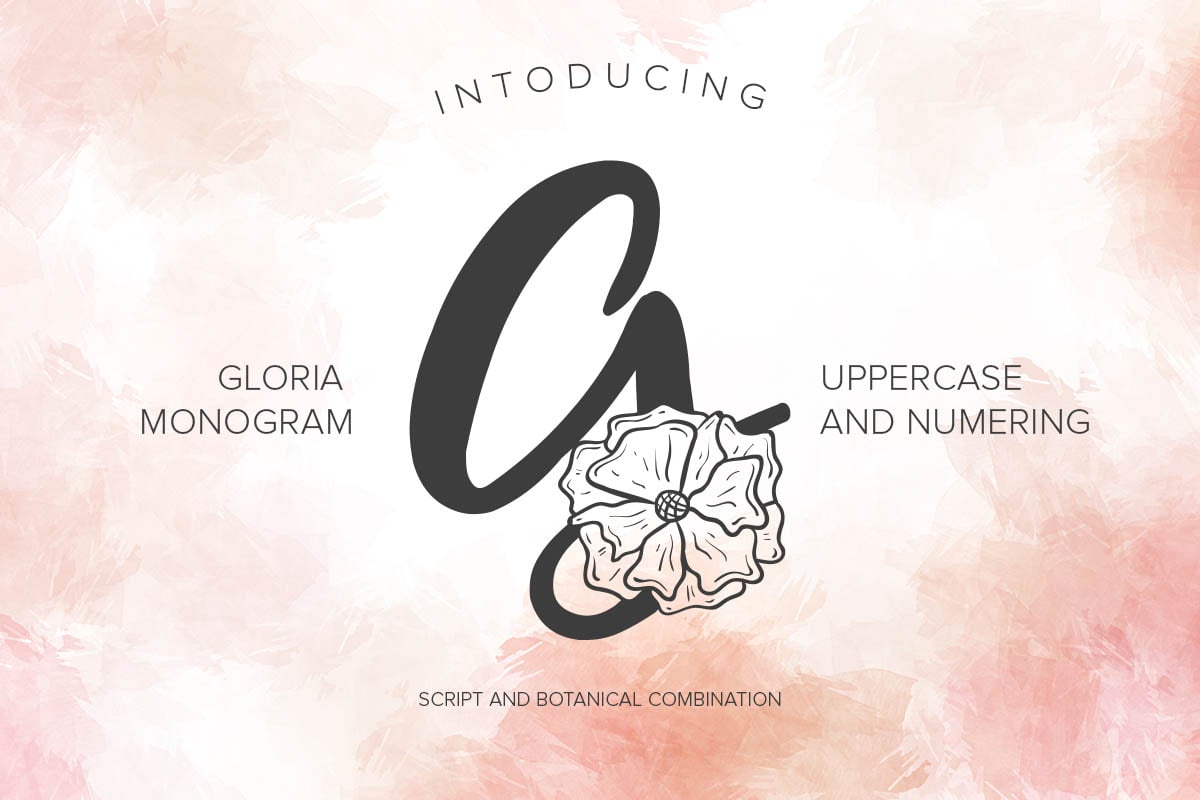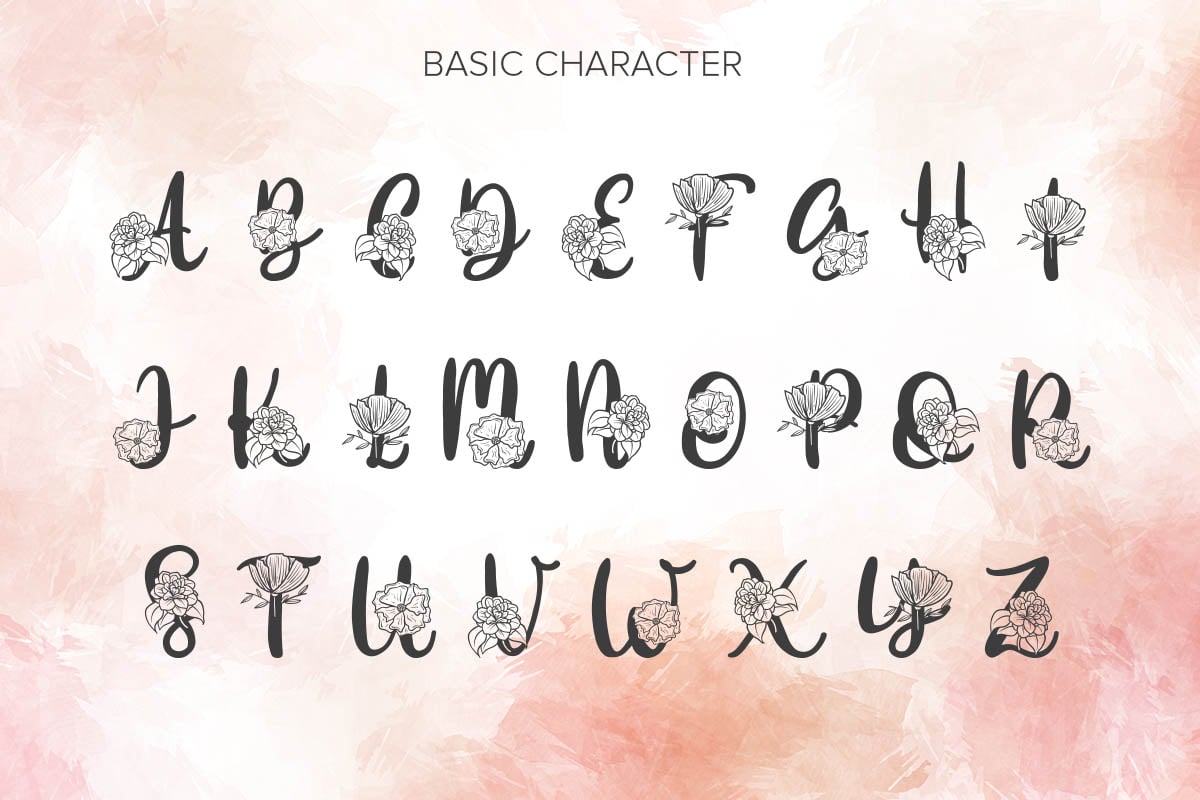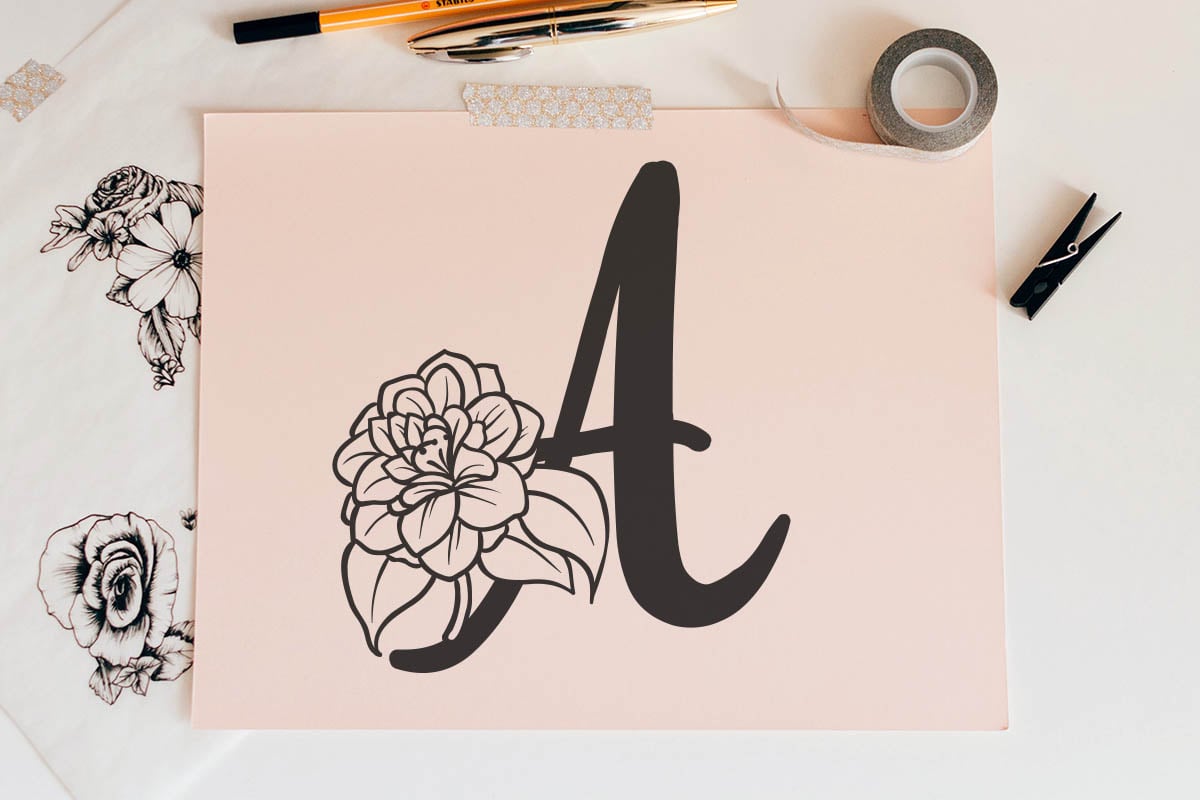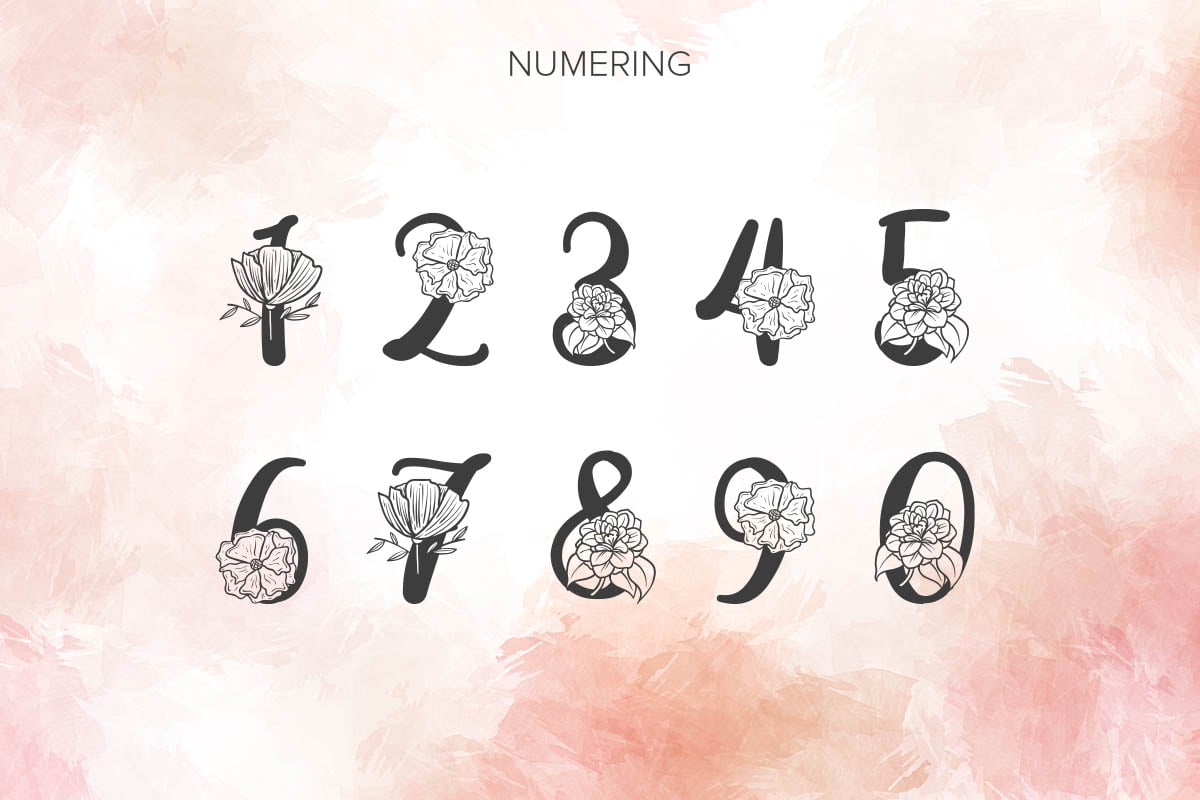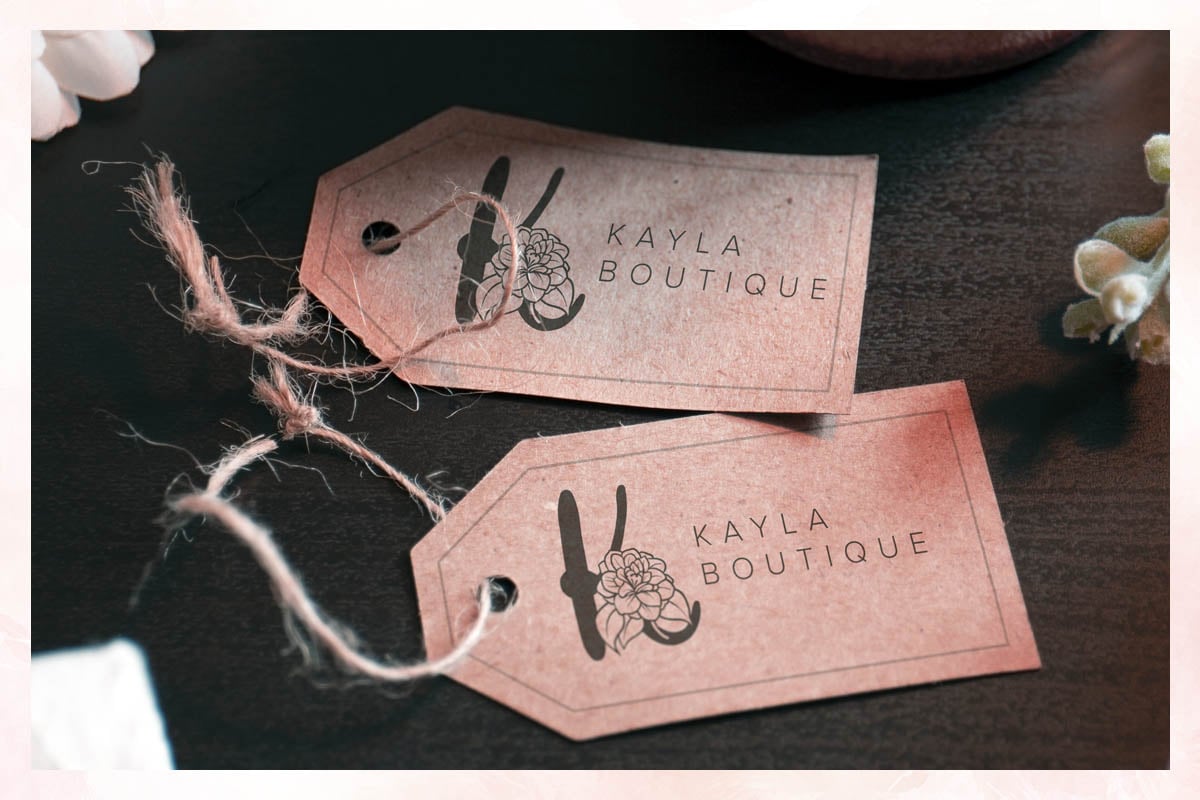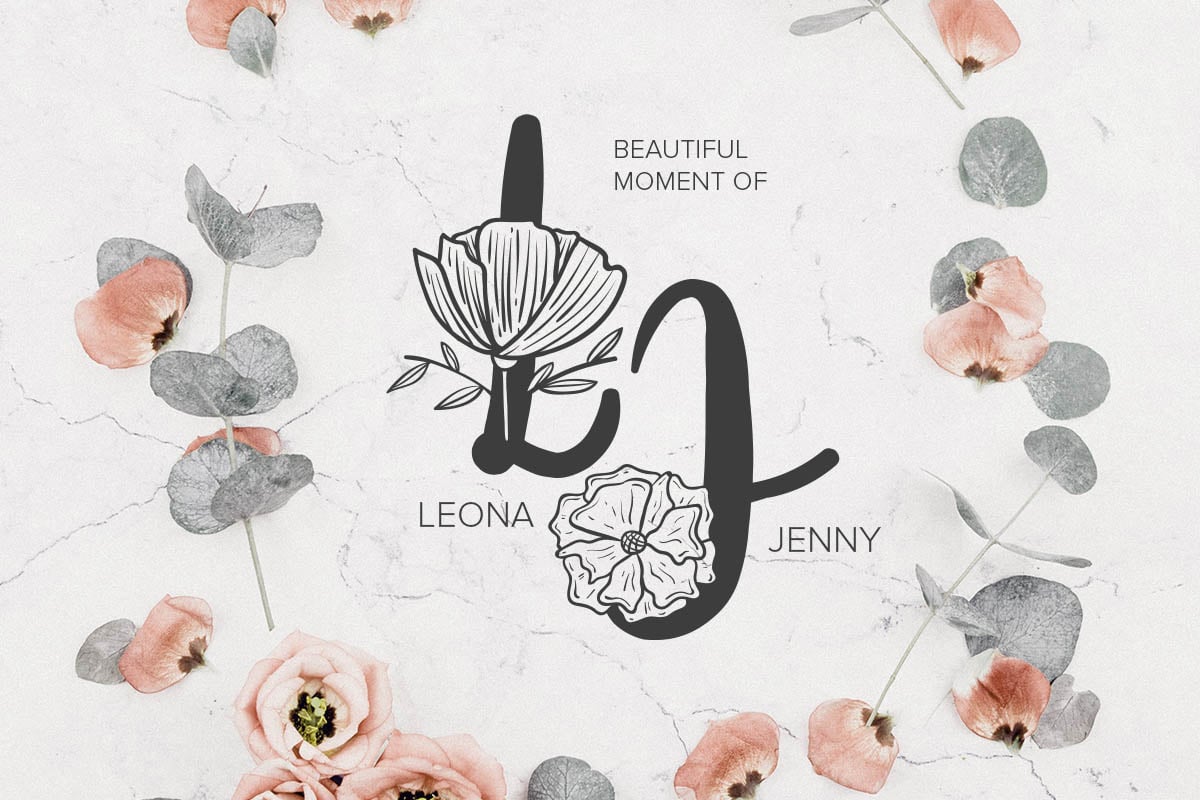
Gloria Monogram Font
Gloria Monogram is a beautiful monogram font that features flower-themed characters. Fall in love with its authentic feel and use it to create gorgeous wedding invitations, beautiful stationary art, eye-catching social media posts, and cute greeting cards.